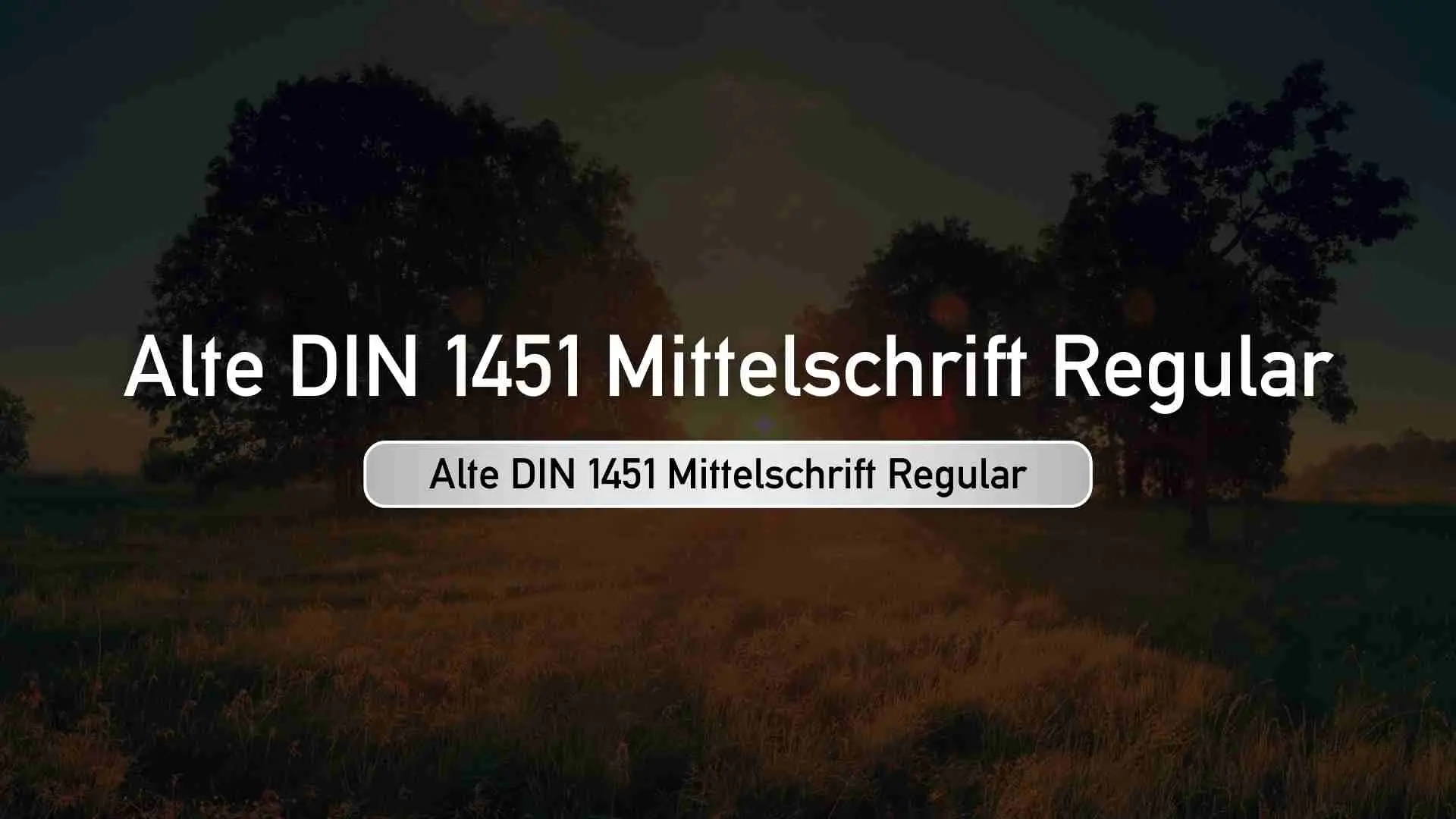
The font Alte DIN 1451 Mittelschrift Regular, designed by Peter Wiegel, falls under the Sans Serif category & Alte DIN 1451 Mittelschrift font family. Its smooth, flowing letterforms make it a versatile choice for projects that require both elegance and readability. Alte DIN 1451 Mittelschrift is particularly well-suited for Signage, Headlines, Display Text and Publication Design. With its balance of simplicity and decorative appeal, this font brings a polished touch to both personal and professional designs.